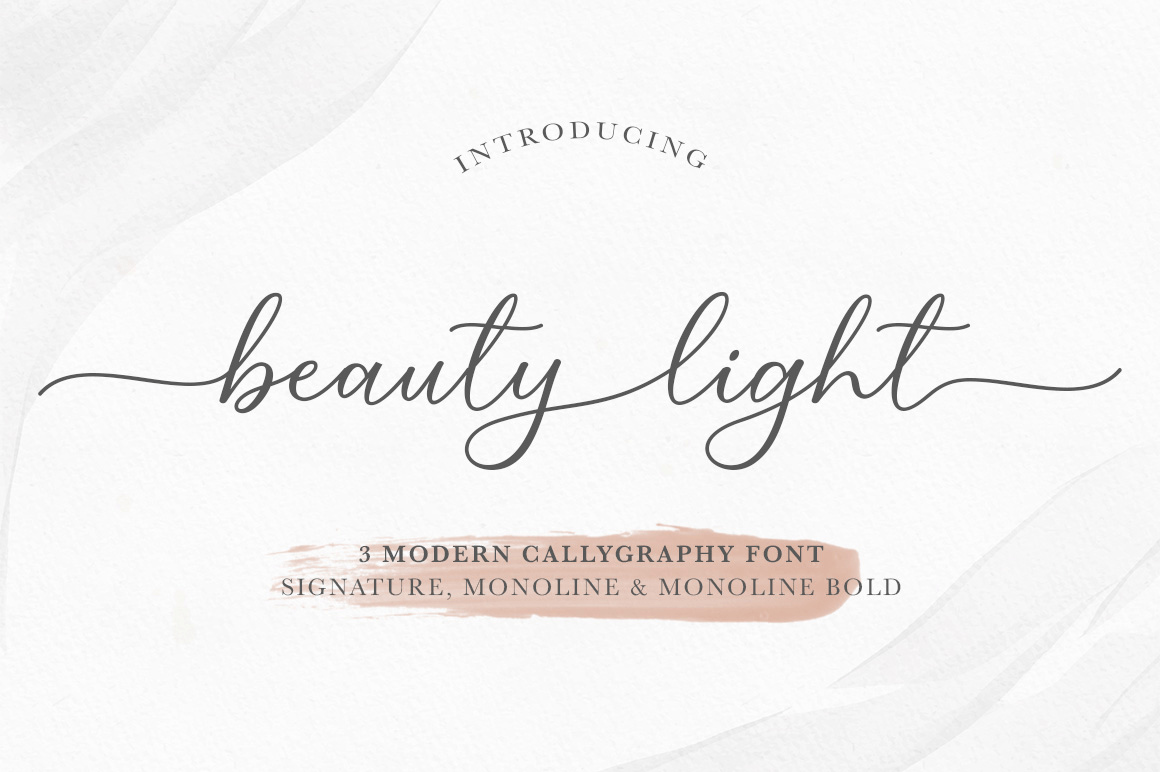
Beauty Light
About Beauty Light
An interconnected, script font with a handwritten style that's ideal for wedding correspondence, sophisticated handcrafted logos and corporate identity, online platforms, inspirational quotes on social media, and beyond! It comes complete with an…